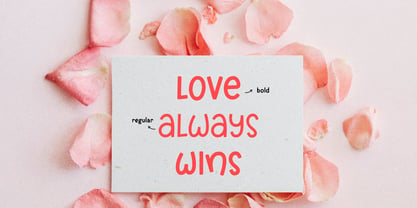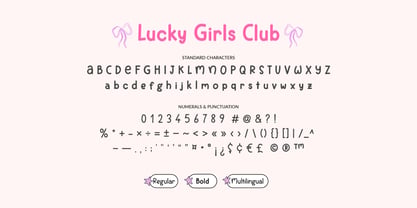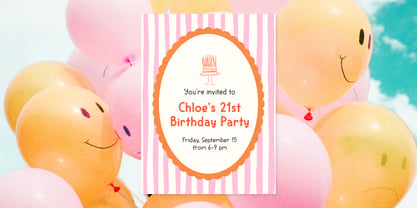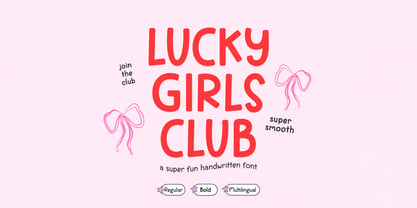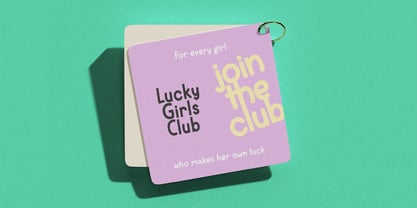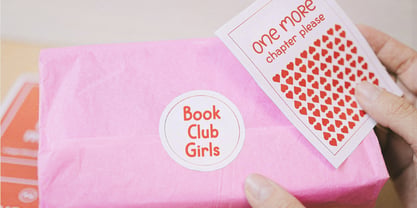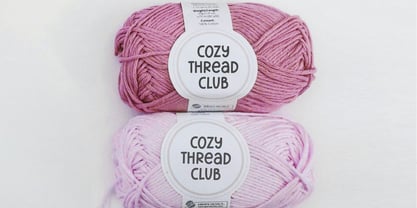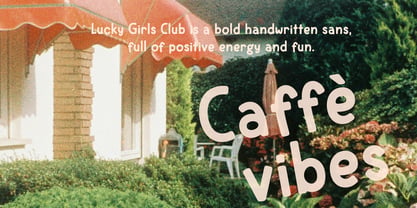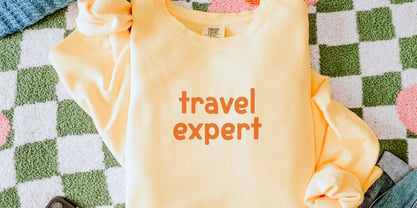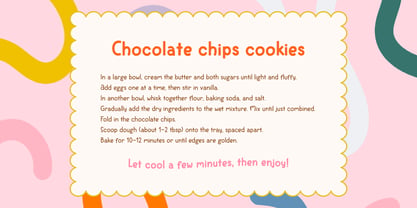
Lucky Girls Club
La familia tipográfica Lucky Girls Club fue diseñada por Fatih Kaya y publicada por Kaya Fonts. Lucky Girls Club contiene 2 estilos y opciones de paquete familiar. Más información sobre esta familia
Lucky Girls Club is a bold handwritten sans font with chunky rounded letters, smooth playful shapes, and a casual hand-drawn look. It works great for Cricut crafts, Canva designs, laser cutting, stickers, labels, shirts, tote bags, mugs, posters, invitations, party designs, branding, and more.
FONT FEATURES
• Uppercase letters
• Lowercase letters
• Numbers
• Punctuation
• Multilingual characters
• Soft and rounded corners